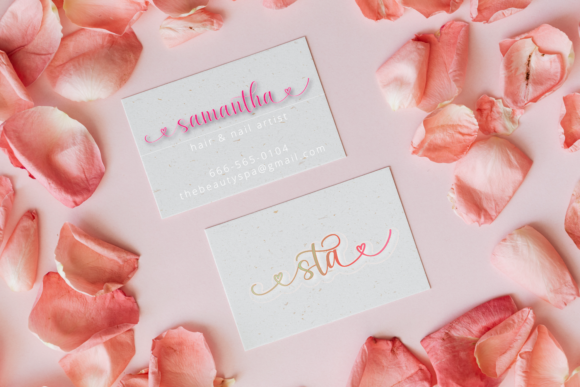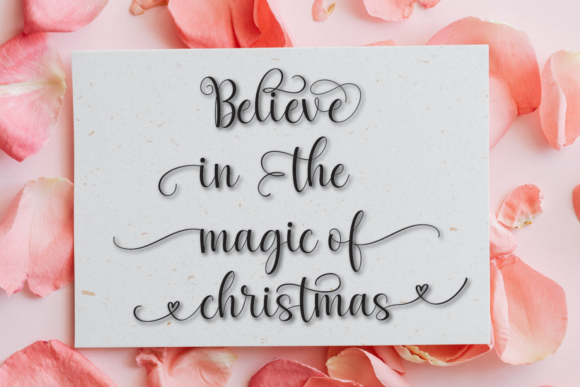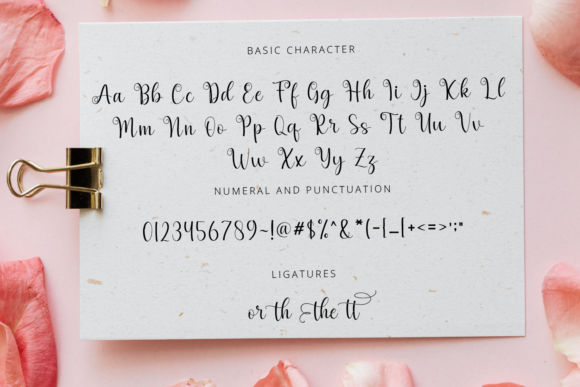
Introduction to Magical Script Font
Magical Script is a dazzling script font.
It will add a luxury spark to any design project that you wish to create This font is PUA encoded which means you can access all of the amazing glyphs and ligatures with ease.
Key Features of Magical Script Font